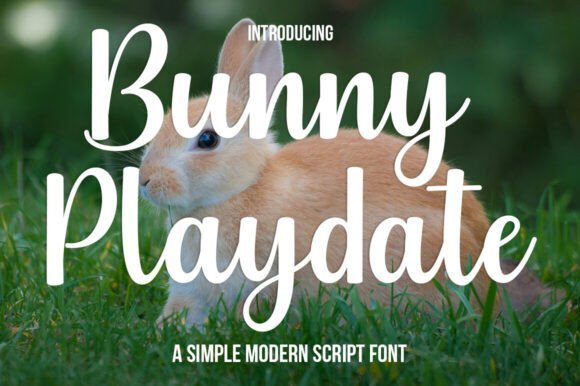
The Perfect Font for a Whimsical Design
Have you ever found yourself lost in a sea of design ideas, searching for the perfect font to bring your vision to life? Perhaps you’ve scrolled through countless options, only to end up with a generic, uninviting aesthetic. We’ve all been there. But what if you stumbled upon a font that not only captured your imagination but also effortlessly infused your design with a touch of magic?
Meet the Bunny Playdate Font, a delightful cursive handwritten font that exudes an aura of sweetness and sophistication. This enchanting font is the perfect companion for designers seeking to add a whimsical, romantic touch to their work. Whether you’re crafting a branding campaign, creating wedding collateral, or designing a fashion lookbook, Bunny Playdate Font is the ideal choice for making your designs unforgettable.
- Unique Characteristics: The font features a playful, whimsical design with hand-drawn elements, giving it a distinctive and eye-catching appearance.
Bunny Playdate Font Review
Overall, I was really excited to dive into the Bunny Playdate Font and see what it had to offer. As a designer, I’m always on the lookout for unique and playful fonts that can bring some personality to a project.
- The font has a clear and whimsical feel to it, making it perfect for projects that need a touch of magic.
- The letters are well-crafted and detailed, with a nice balance of thick and thin lines.
- The font is highly customizable, with a wide range of font sizes and styles to choose from.
- The font can feel a bit overwhelming if used in large quantities, so be careful not to overdo it.
- The font may not be the best choice for projects that require a more serious or professional tone.
- The font is not optimized for smaller font sizes, so it may become difficult to read at smaller sizes.
Overall, I think the Bunny Playdate Font is a fun and creative addition to any design project. While it may have some limitations, it’s definitely worth considering for projects that need a playful touch.
Getting the Most Out of the Bunny Playdate Font
To get the most out of the Bunny Playdate Font, try using it in combination with other cute and playful graphics, such as illustrations of bunnies or other animals.
Also, experiment with different font sizes and colors to create a unique and eye-catching design.
The Bunny Playdate Font is ideal for use in children’s party invitations, birthday cards, and other fun and playful designs.
It’s also great for use in children’s books, educational materials, and other projects that require a cute and engaging font.